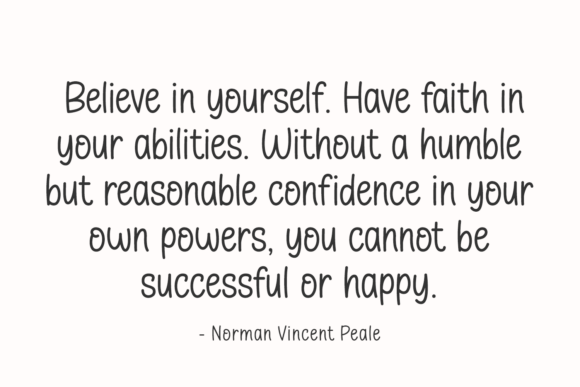
Introduction to Easy Lover Font
Easy Lover is a charming and approachable handwritten font.
Its clean lines and slightly rounded edges give it a friendly and casual feel The characters appear to be hand-drawn, yet maintain a consistent and legible form, making it easy to read.
Key Features of Easy Lover Font